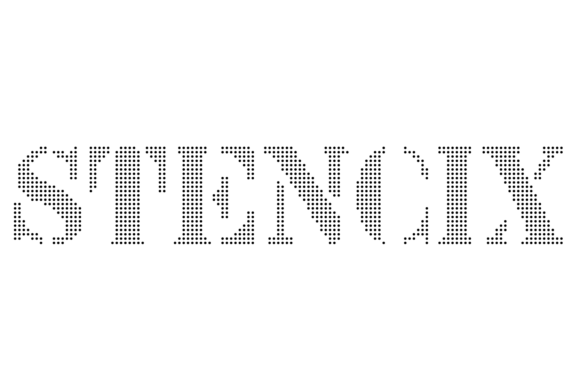
Immerse yourself in the captivating realm of digital artistry with Stencix Font, a remarkable creation by Intellecta Design. This display font family masterfully blends the aesthetics of stencils and pixelation, resulting in a striking visual symphony.
Crafted with meticulous attention to detail, Stencix Font exudes a captivating charm that is both timeless and contemporary. Its chiseled edges, reminiscent of classic stencil lettering, impart a sense of nostalgia, while its pixelated elements evoke the vibrant energy of the digital age.
Journey into a world of limitless creativity with Stencix Font. Whether you're a seasoned designer seeking to elevate your projects or a budding artist exploring new avenues of self-expression, this font family is your gateway to extraordinary design possibilities.
Unleash your imagination and let Stencix Font be your guiding light as you create captivating logos, eye-catching posters, compelling social media graphics, and visually stunning website designs that leave a lasting impression.